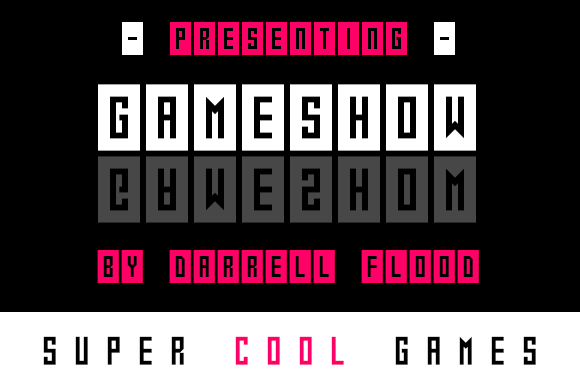
Lighting Up the Stage: Introducing Gameshow Font
Who hasn’t had that moment when a creative idea just strikes? Maybe it’s late at night, and you’re scrolling through your social media feed, and suddenly, you see a font that sparks something within you. For designers, this moment can be a game-changer, and it’s exactly what happened when we stumbled upon the Gameshow Font.
This modern, futuristic font is specifically designed to transport your audience to the world of game shows and television. With its sleek lines and vibrant feel, Gameshow Font is perfect for futuristic themes, live broadcasts, and more. Whether you’re working on a sci-fi project or a retro-futuristic design, this font is sure to elevate your visuals and make your designs stand out.
For designers, having the right font at the right moment can be invaluable. With Gameshow Font, you’ll have a versatile tool to bring your ideas to life and captivate your audience. Its unique style and modern twist make it an essential addition to any designer’s toolkit.
Key Features of “Gameshow Font”
- Font Family: Gameshow Font is a sans-serif font family designed for use in game shows, quizzes, and other interactive content. It comes in a range of weights, from light to bold.
- Character Set: The font includes a comprehensive character set, including uppercase and lowercase letters, numbers, punctuation marks, and special characters.
- Resolution: Gameshow Font is designed for use at high resolutions, making it ideal for use in digital displays, such as TVs, monitors, and mobile devices.
- Unique Characteristics: The font features a distinctive, bold, and playful design, with exaggerated letterforms and a futuristic feel. The font is optimized for use in titles, headings, and other display text.
- Size: The font is available in a range of sizes, from 8-point to 72-point, making it suitable for use in a variety of applications, from small screens to large-format displays.
Gameshow Font Review
I recently had the chance to play around with the Gameshow Font, and I must say it’s a unique and attention-grabbing typeface. ✨ One of the things that stands out about this font is its bold, energetic feel. It’s perfect for anything that needs to make a big impression, like game show logos or promotional materials.
Another thing I appreciate about Gameshow Font is its versatility. ✨ It’s available in a range of weights and styles, making it easy to customize to suit your needs. Whether you’re looking for a clean, modern look or something more playful and retro, Gameshow Font has got you covered.
While Gameshow Font is a great addition to any designer’s toolkit, there are a few limitations to be aware of. ⚠️ For one thing, it’s not suitable for large blocks of text. The font is best used in short bursts or as an accent to add visual interest to your design.
Additionally, some of the font’s more ornate features can be a bit difficult to read at small sizes. ⚠️ If you’re planning to use Gameshow Font for a project that will be viewed on small screens or at a distance, you may want to consider scaling it back or using a more legible font in combination with it.
Overall, I’m really impressed with the Gameshow Font. It’s a fun, eye-catching typeface that’s perfect for adding a bit of excitement to your designs. While it may not be suitable for every project, it’s definitely a valuable addition to any designer’s toolkit.
- ✨ Unique and attention-grabbing design
- ✨ Versatile and available in a range of weights and styles
- ⚠️ Not suitable for large blocks of text
- ⚠️ Some features may be difficult to read at small sizes
Tips for Getting the Most Out of Gameshow Font
For best results, use Gameshow Font for bold and eye-catching headings or titles. It’s also a great choice for creating a fun and playful atmosphere in your designs. Experiment with different font sizes, colors, and styles to get the most out of this font.